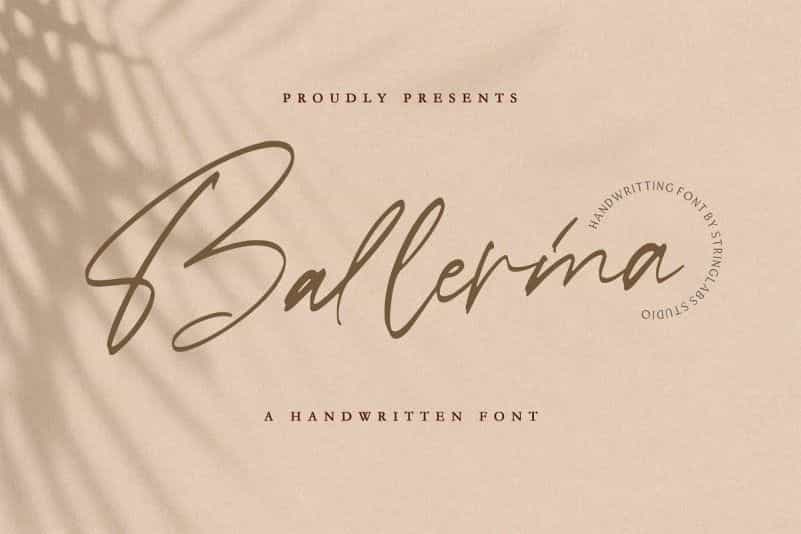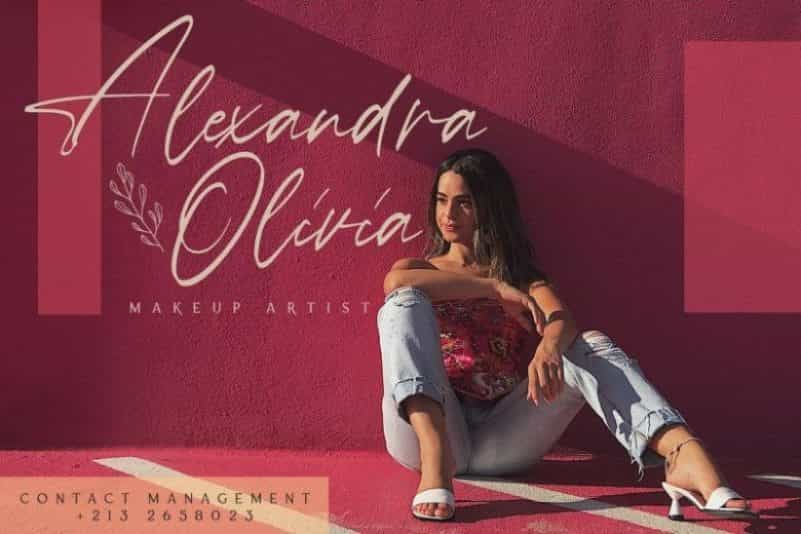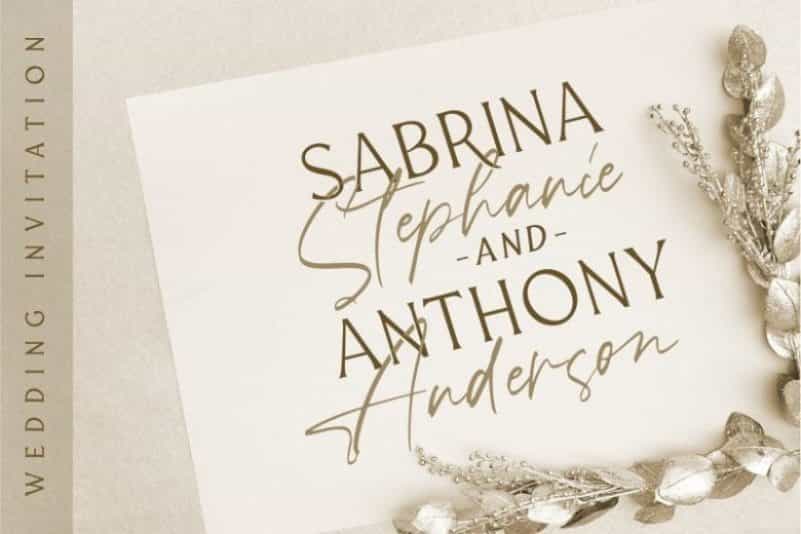
Ballerina is a script font that has modern style as its signature. This font is just the right one for a fashion brand, wedding invitation, business card, logo brand, signature and also calligraphy. This Font Template has the features of Classiness, Elegance, Creativity and Coolness. Besides, it is also one-of-a-kind Concept-wise.